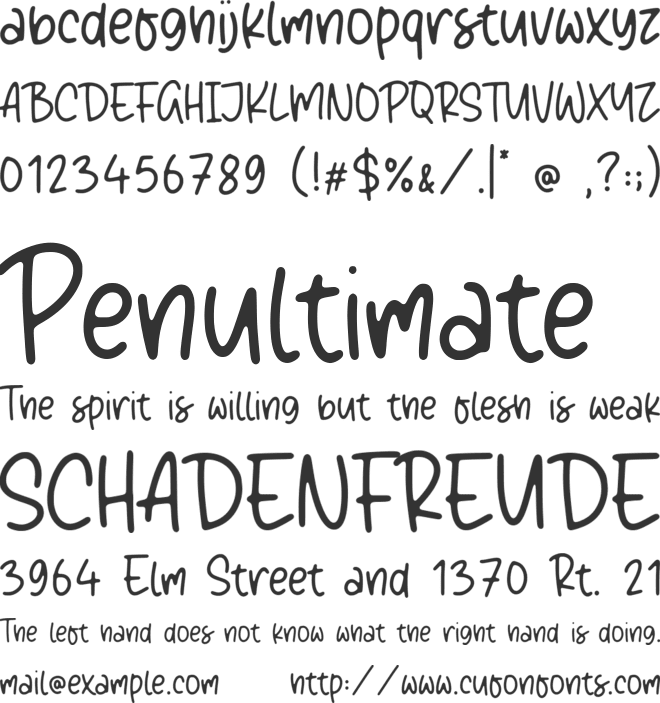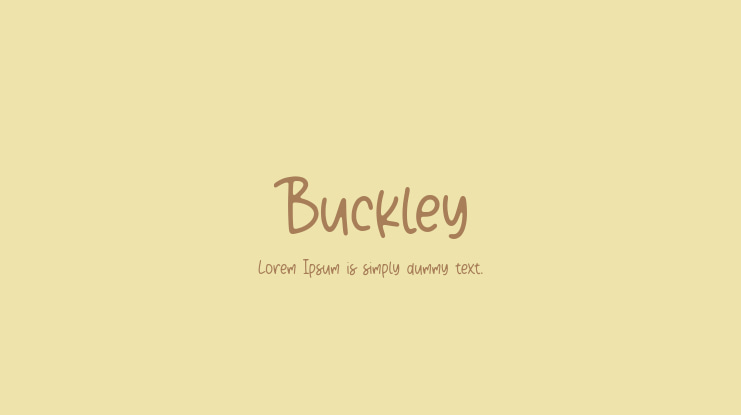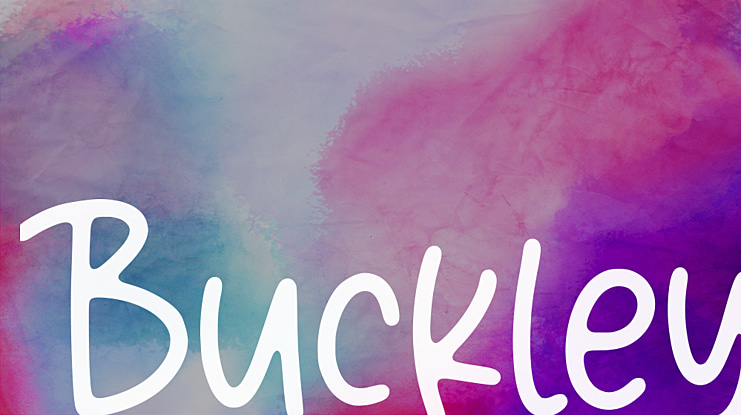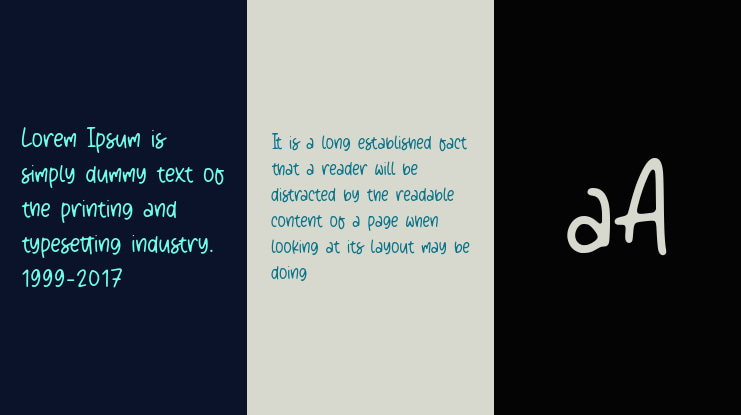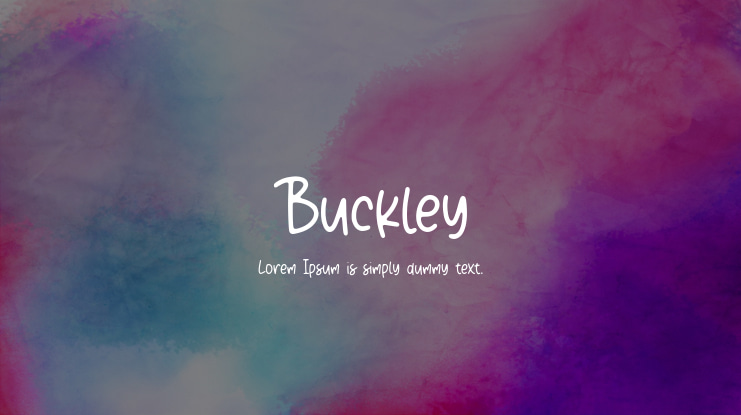
Buckley Font
Introducing by Balpirick Studio.
Proudly Present, Buckley Font.
Buckley is a Modern Calligraphy Font.
Buckley is perfect for product packaging, branding project, megazine, social media, wedding, or just used to express words above the background.